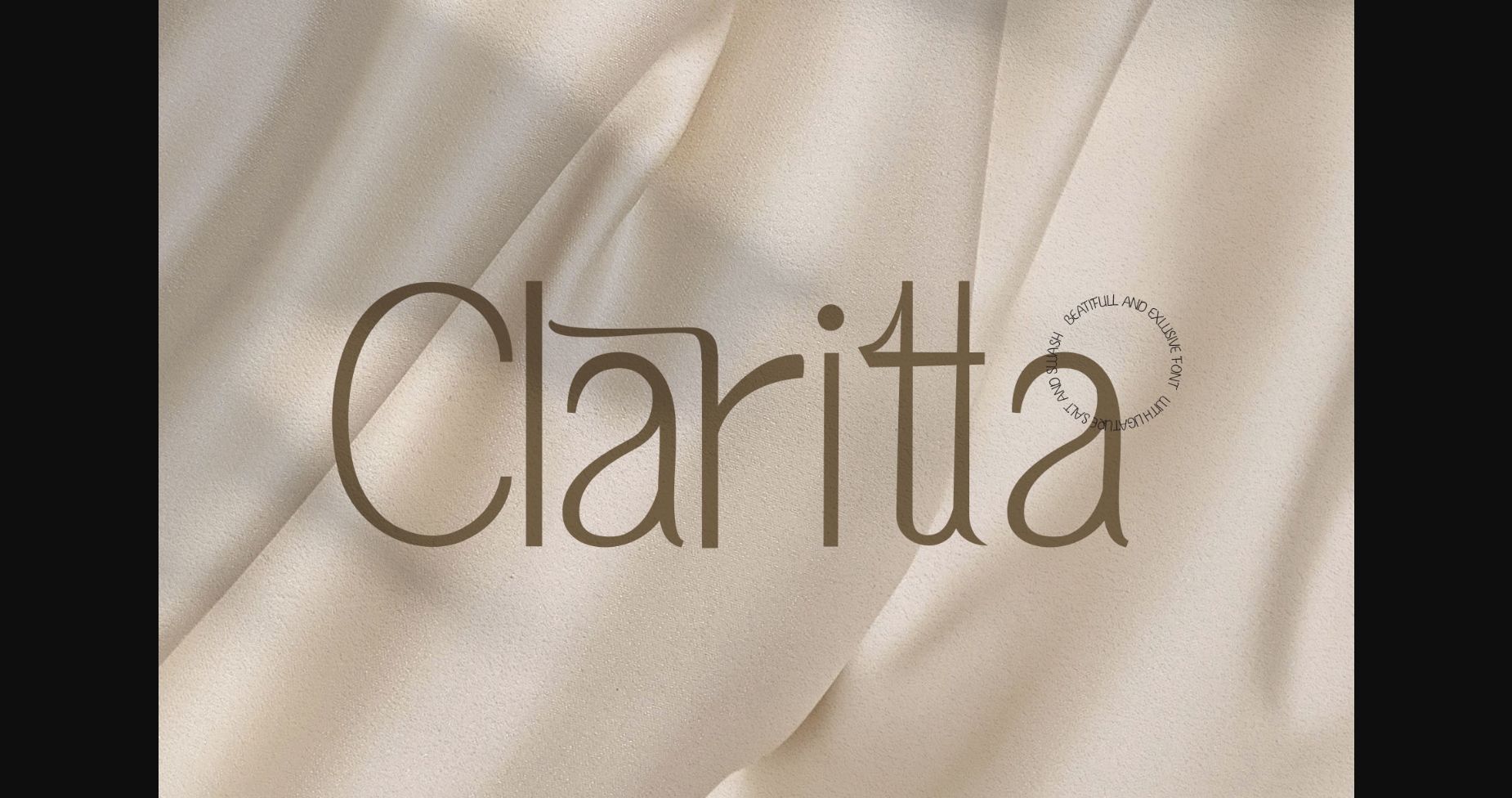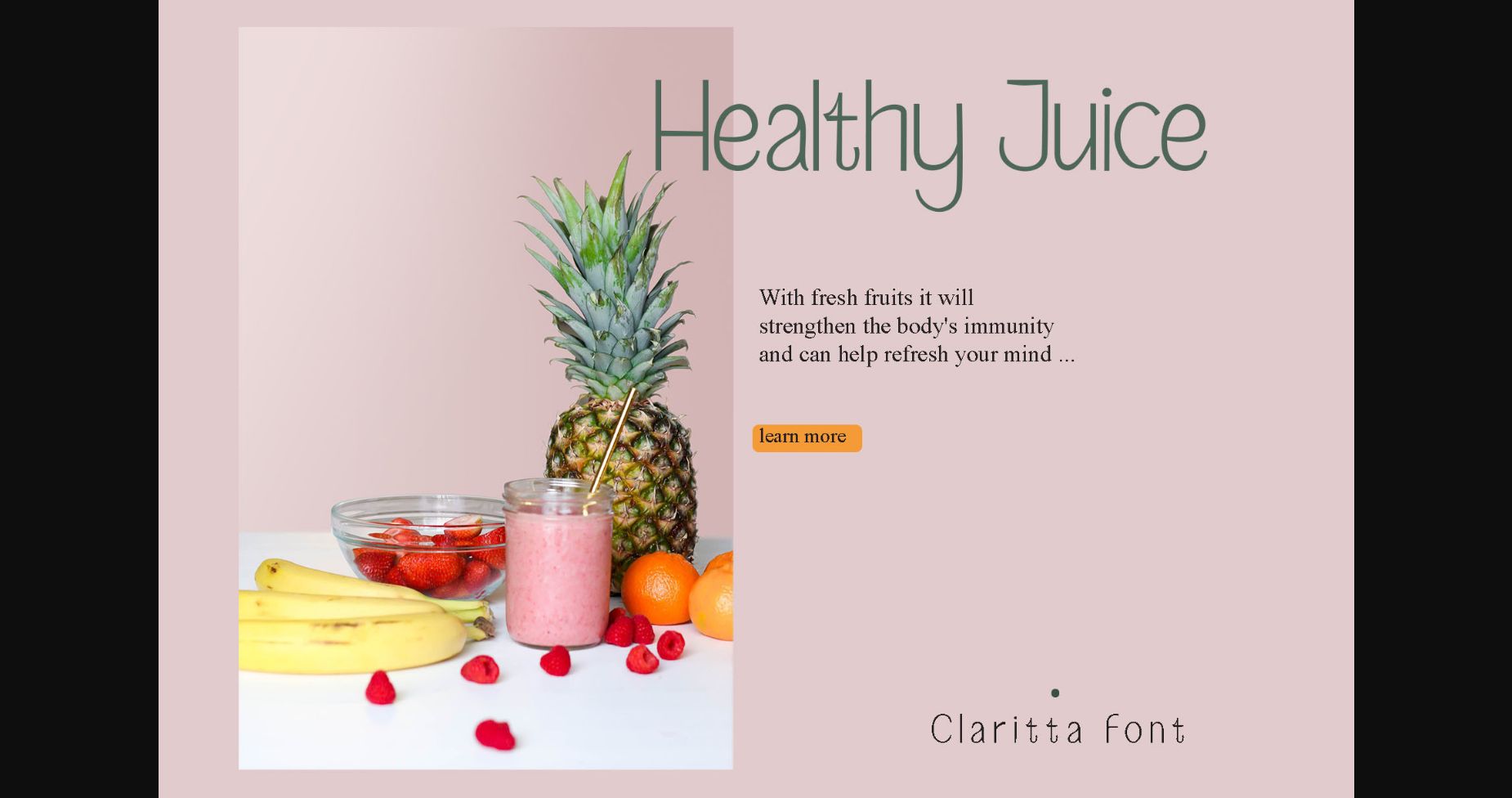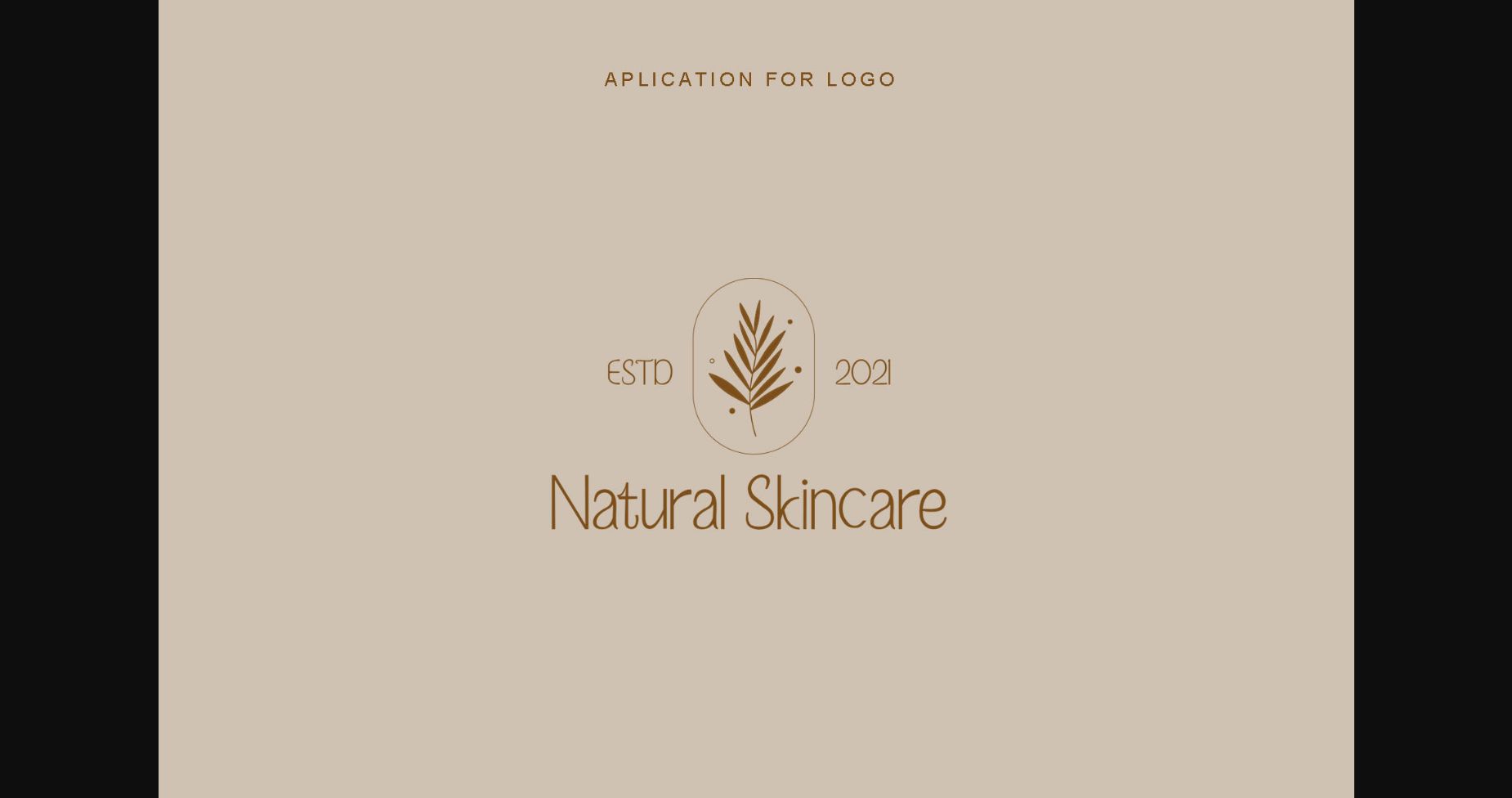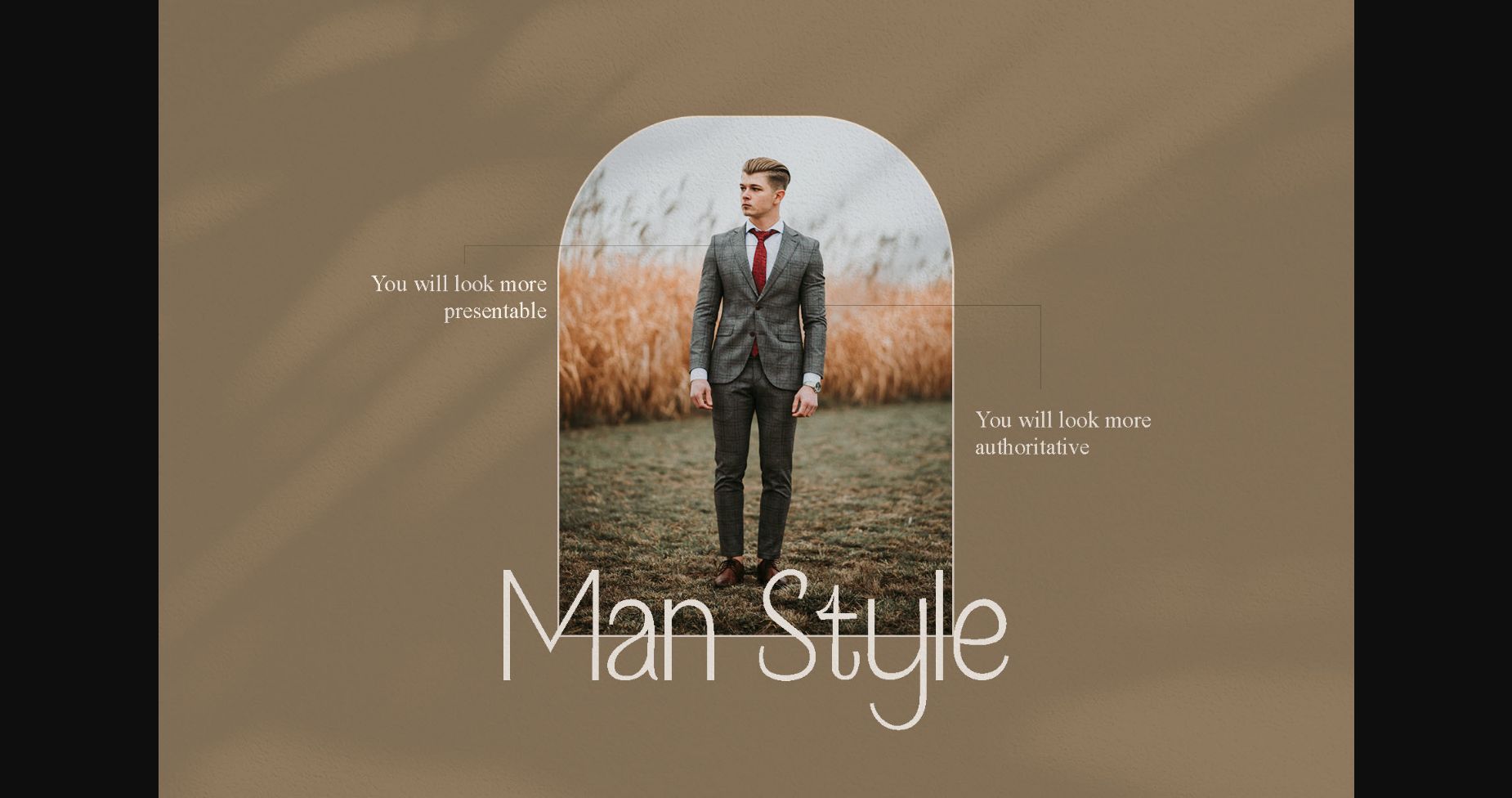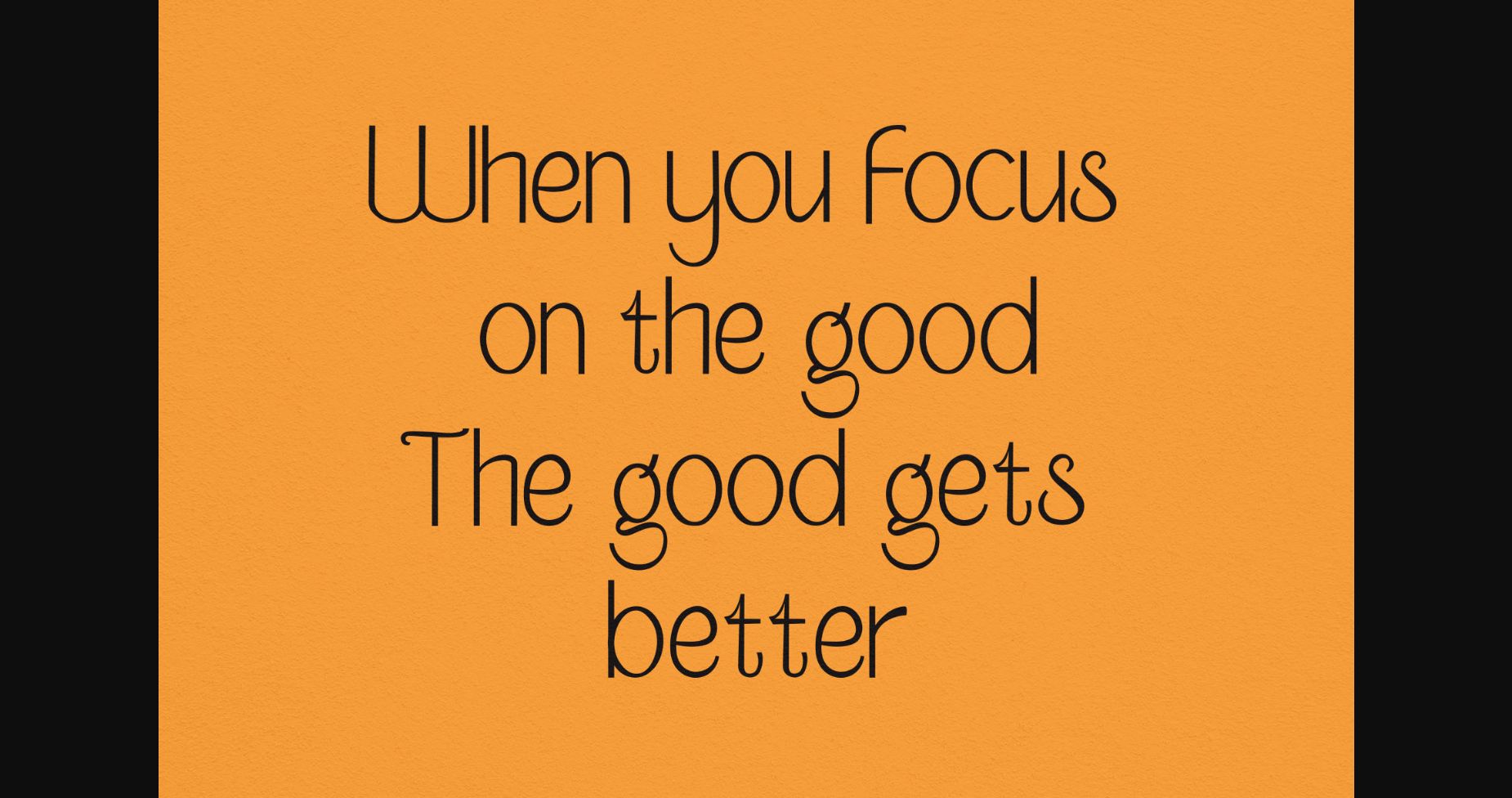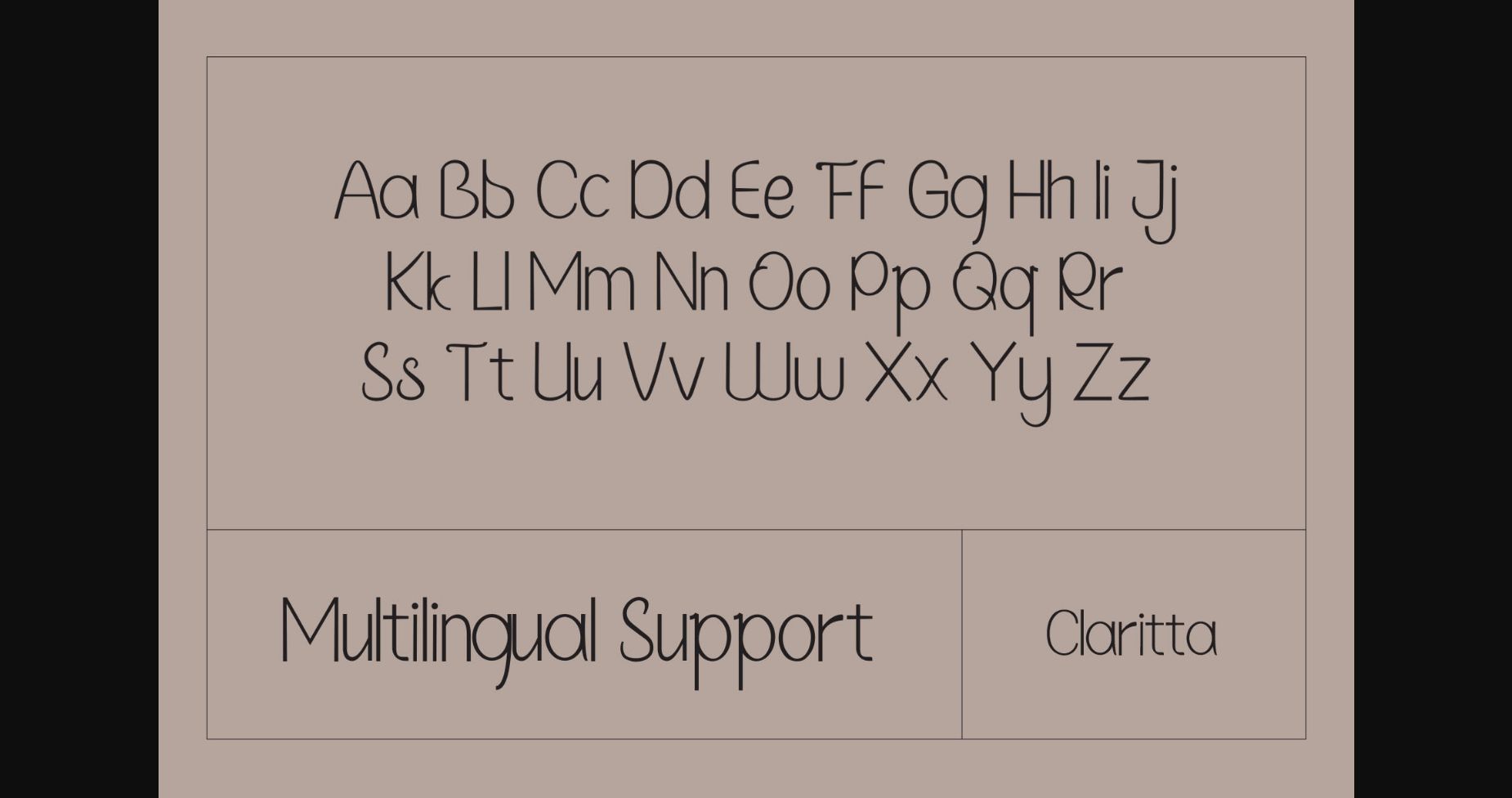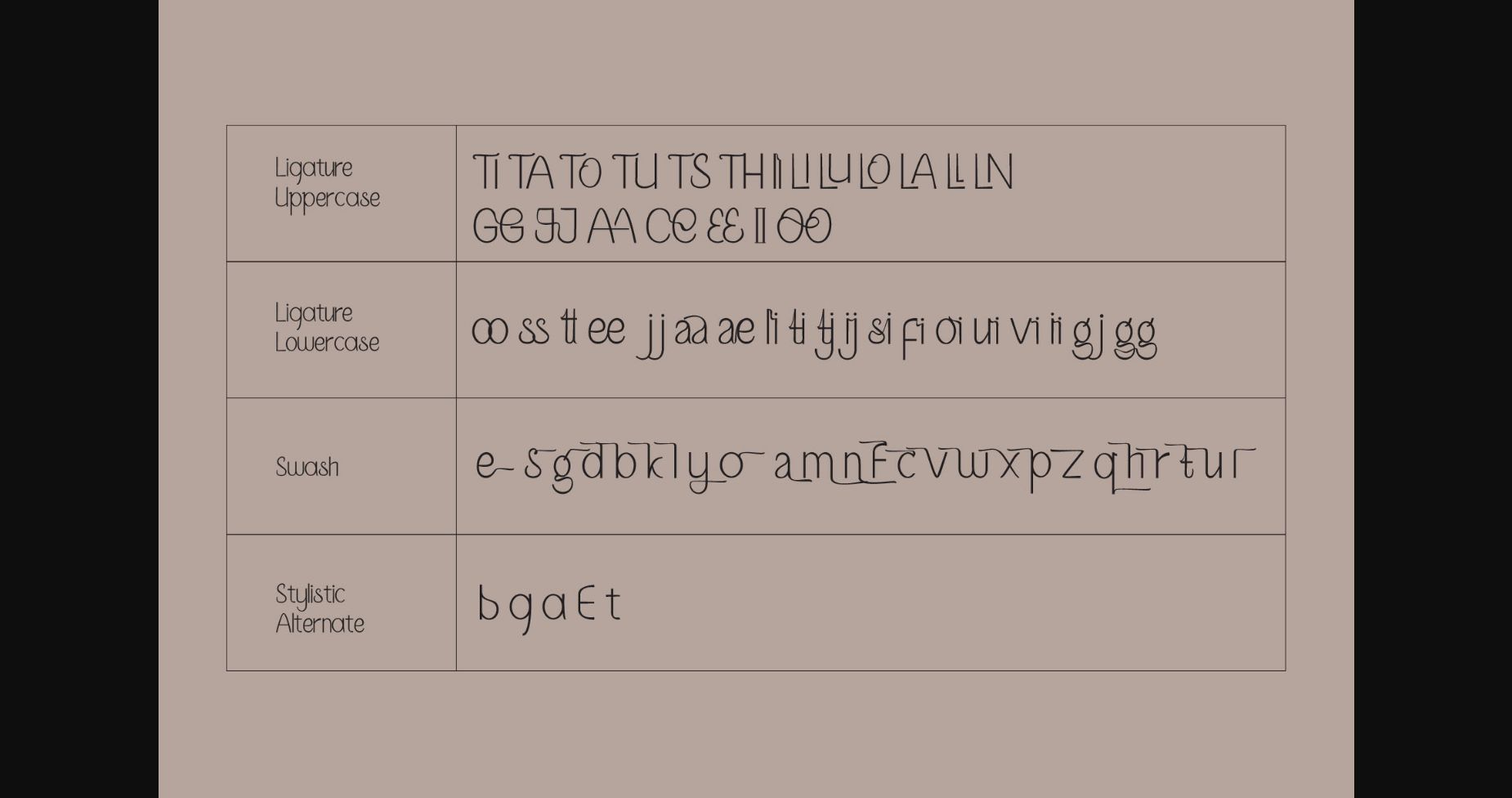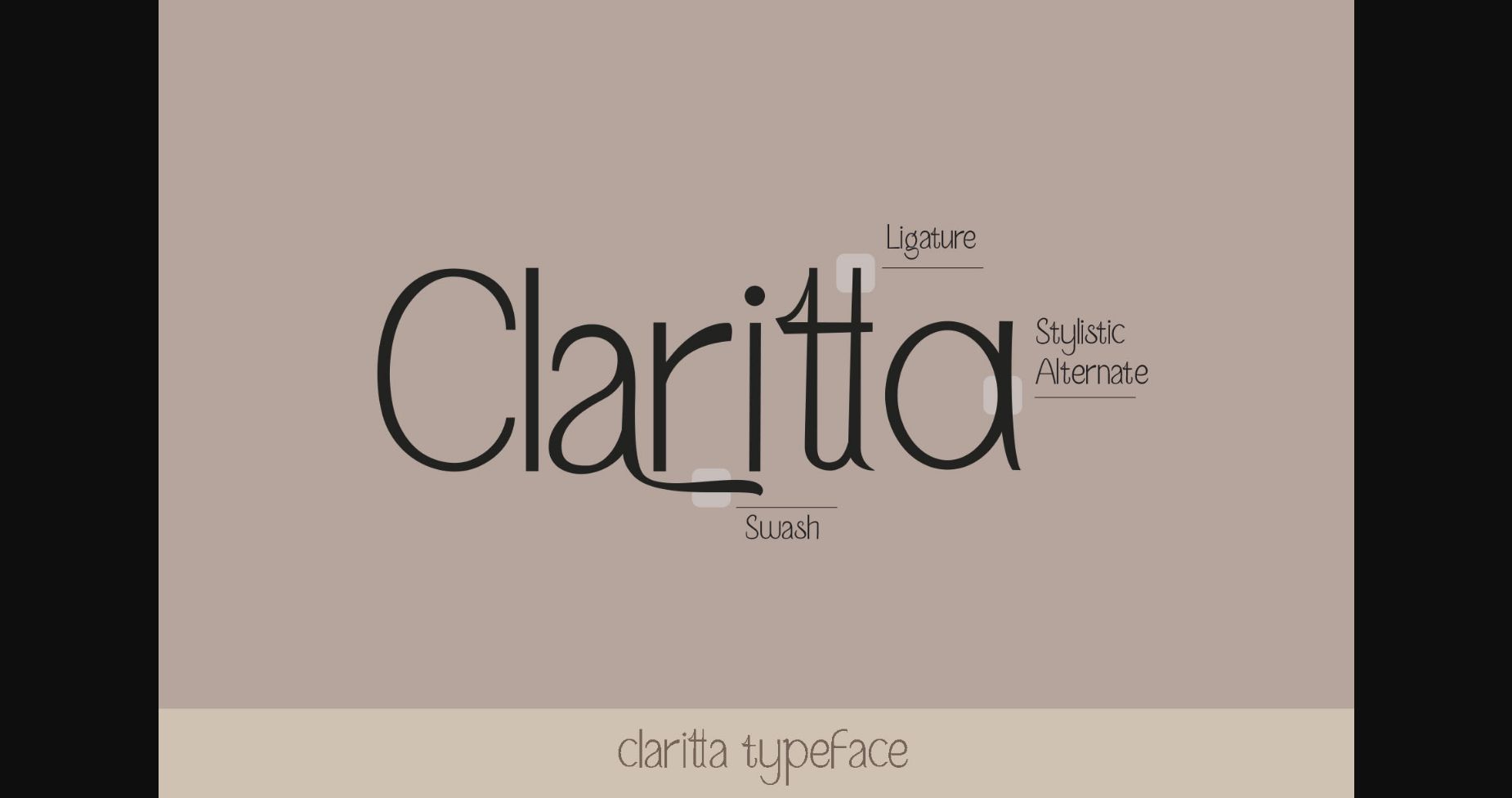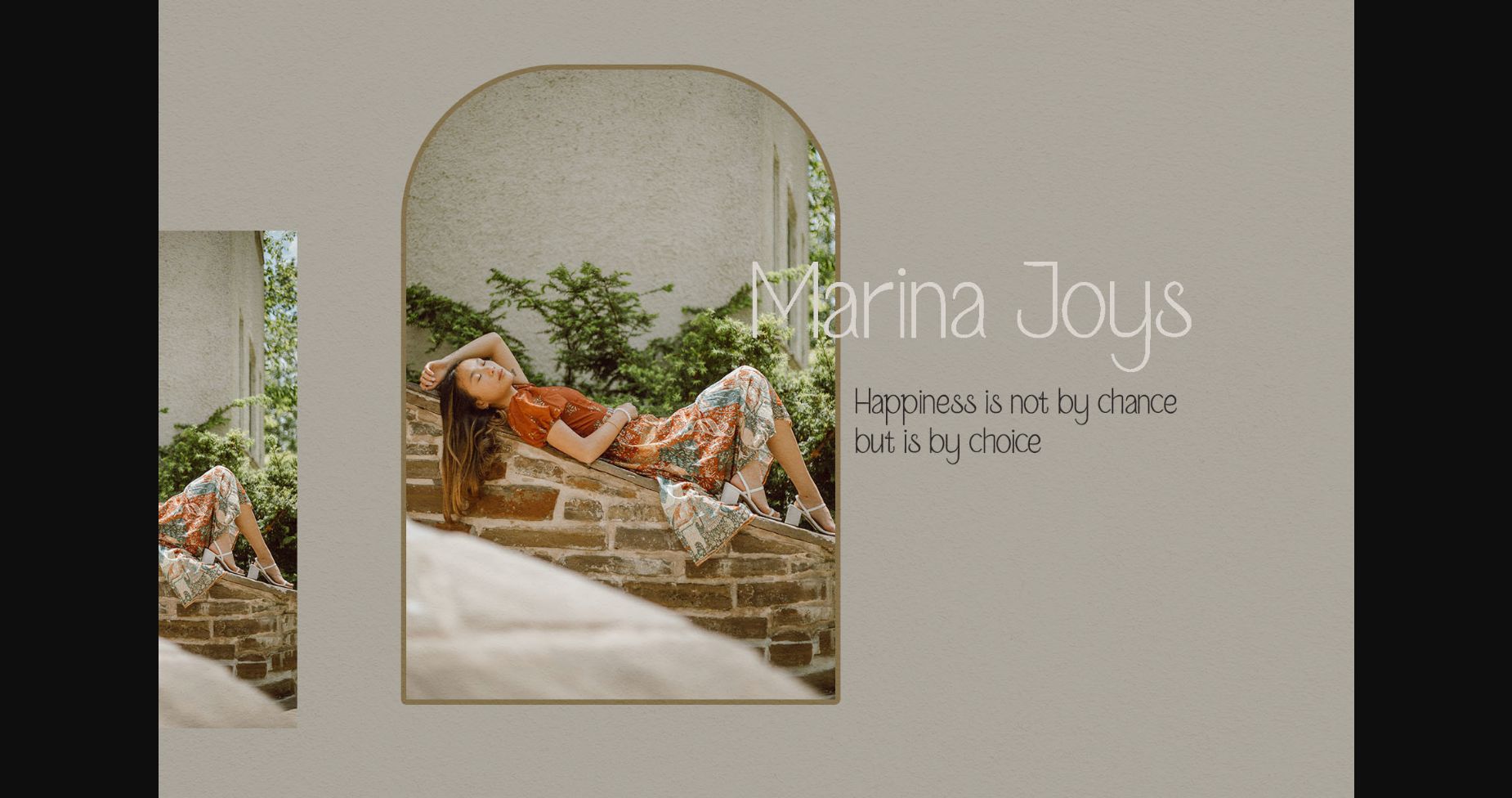
Claritta Font
About Claritta Font
Claritta is a delicate, light and vintage styled sans serif font. It is defined by smooth curves and is perfect for fashion branding or editorial designs. Claritta is PUA encoded which means you can access all glyphs and swashes with ease!